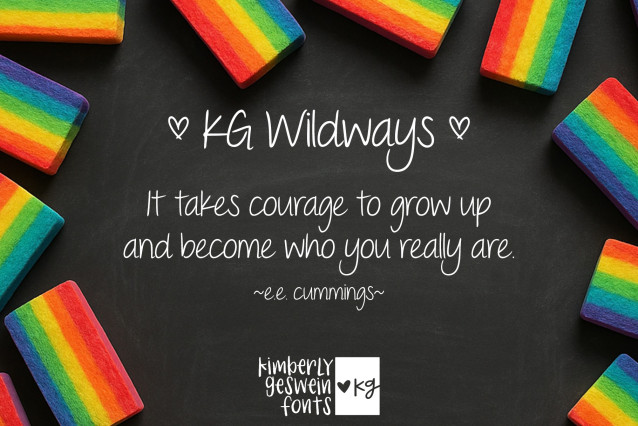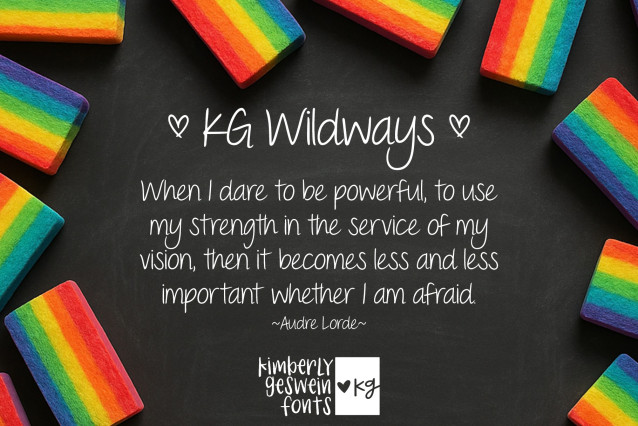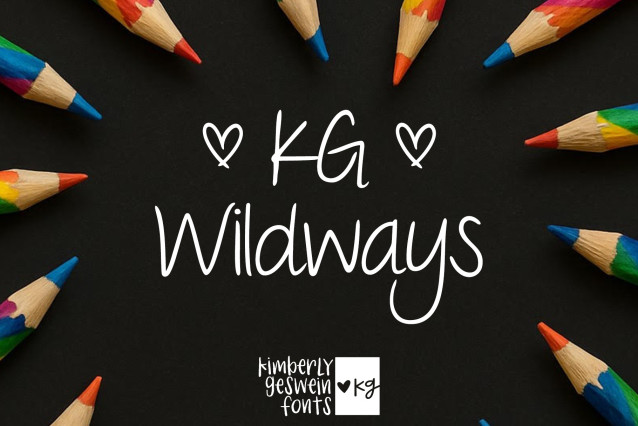
KG Wildways Font
KG Wildways Font is a pretty, semi-connected print font with authentic handwriting feel. You’ll enjoy it where you need a personal touch.